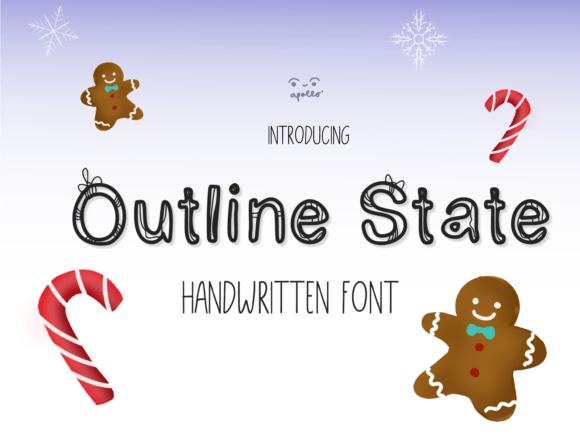
Outline State Font
**Outline State - Unveil the Beauty of Flowing Ink Strokes!**
Embark on a captivating typographic journey with Outline State, an enchanting decorative font family that embodies the essence of creativity and fun. Its unique script and handwritten characters dance elegantly across the page, infusing your designs with a touch of whimsy and spontaneity.
Indulge in the richness of Outline State's versatile nature. Whether you seek to craft eye-catching blog posts, design memorable logos, establish a distinctive brand identity, or create captivating ads, this font is your artistic muse. Its graceful strokes add a touch of elegance to invitations, greeting cards, and planners, transforming them into cherished keepsakes.
Outline State is the perfect font for expressing your playful side. Unleash your creativity in photo albums and decorations, letting the playful lines of this font bring life to your cherished memories. With Outline State, every project becomes a canvas for your imagination to soar.
Don't resist the charm of Outline State. Let its enchanting characters captivate your audience, leaving an unforgettable impression that transcends the ordinary. Step into a world of typographic delight and embrace the boundless possibilities that await with Outline State.
**Key Features:**
* Unique script and handwritten font
* Perfect for display projects
* Versatile for various designs
* Adds a touch of whimsy and fun
* Enchanting and captivating characters
**Perfect for:**
* Blog posts
* Logos
* Branding
* Ads
* Invitations
* Greeting cards
* Planners
* Photo albums
* Decorations